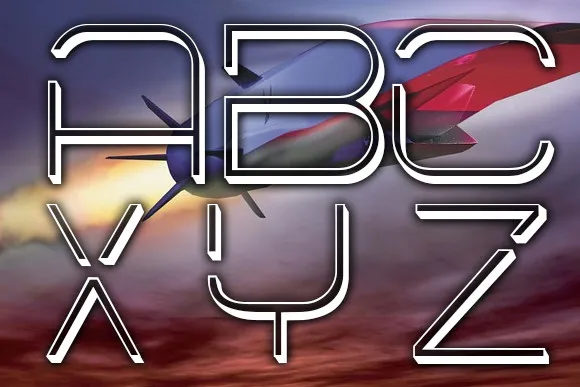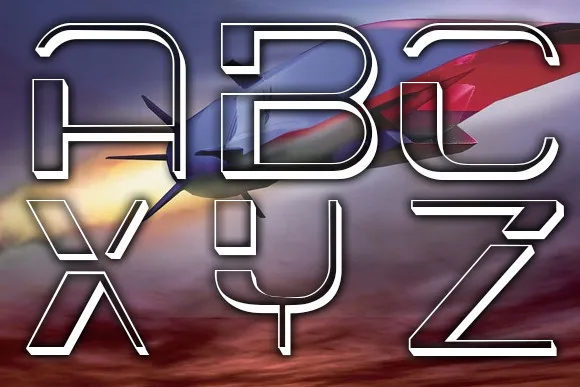
Cyber Dreams: Unlocking the Power of a Futuristic Font
Have you ever been brainstorming a new project and suddenly, a spark of creativity hits you? Maybe it’s the perfect blend of color, shape, or texture that sets your imagination ablaze. For many designers, that moment of inspiration is what drives them to create something truly unique and captivating.
Enter Cyber Font, a bold and futuristic display font that’s about to become your new go-to for adding a sci-fi touch to your designs. This modern font is perfect for making a statement and transporting your audience to a world of innovation and technology. With Cyber Font, the possibilities are endless, from futuristic interfaces to cutting-edge branding.
Whether you’re working on a high-tech startup or a retro-futuristic art piece, Cyber Font is a valuable addition to your design toolkit. Its versatility and edgy vibe make it an essential tool for designers looking to push the boundaries of creativity and style.
Cyber Font Key Features
- Font Family: Cyber Font is a futuristic sans-serif font designed for digital use. It includes multiple weights and styles to suit various design needs.
- Character Set: Supports a wide range of languages, including Latin, Cyrillic, and Greek alphabets, making it suitable for global applications.
- Unique Characteristics: Cyber Font features a distinctive, high-tech aesthetic with clean lines, geometric shapes, and a futuristic feel, making it ideal for sci-fi, tech, and gaming-related projects.
Cyber Font Review
Overall, I’d say Cyber Font is a solid choice for digital projects. ✨ The font’s futuristic aesthetic is spot on for sci-fi or tech-related designs, and it’s surprisingly legible even at small sizes. ✨ The font’s clean lines and minimal ornamentation make it a great choice for interfaces and UI elements. ✨
- Excellent for digital projects with a futuristic or tech-themed aesthetic
- Legible even at small sizes
- Clean and minimal design makes it suitable for UI elements
However, there are some limitations to consider. ⚠️ The font’s bold and italic styles feel a bit inconsistent with the regular weight, which can be jarring in certain contexts. ⚠️ Additionally, the font’s character set is a bit limited, which may not be suitable for projects that require a wide range of languages or special characters. ⚠️
- Inconsistent bold and italic styles
- Limited character set may not be suitable for projects with multiple languages
Overall, I’d recommend Cyber Font for digital projects that require a futuristic or tech-themed aesthetic. While it has some limitations, it’s a solid choice for UI elements and interfaces, and its legibility and clean design make it a great choice for a wide range of projects.
- Use Cyber Font for headings or titles to add a touch of futuristic flair.
Cyber Font is ideal for:
- Technology and gaming-related designs.
- Sci-fi and futuristic-themed projects.
- Adding a touch of edginess to corporate designs.
Alternatives to Cyber Font for Designers
1. Arial
Arial is a sans-serif font that is clean and easy to read. It is a popular choice for body text and is often used in digital interfaces. It is similar to Cyber Font in its clean and modern aesthetic, but has a more neutral feel.
2. Helvetica
Helvetica is a highly legible sans-serif font that is often used in graphic design and advertising. It is a more premium option than Cyber Font and has a more sophisticated feel. It is ideal for use in branding and identity design.
Open Sans is a modern sans-serif font that is highly legible and versatile. It is a popular choice for digital interfaces and is often used in web design. It has a similar clean and modern feel to Cyber Font, but with a more open and airy aesthetic.
Inter is a sans-serif font that is highly legible and versatile. It was designed specifically for digital interfaces and has a clean and modern aesthetic. It is similar to Cyber Font in its clean and modern feel, but has a more nuanced and sophisticated feel.